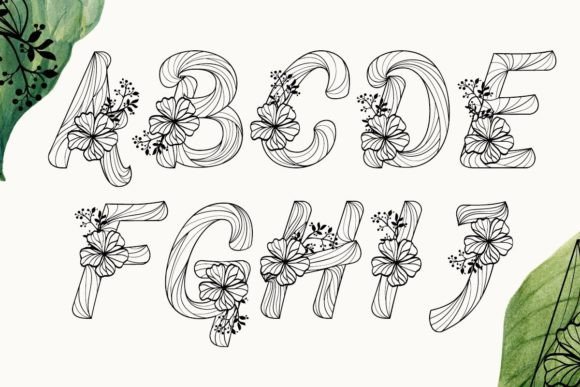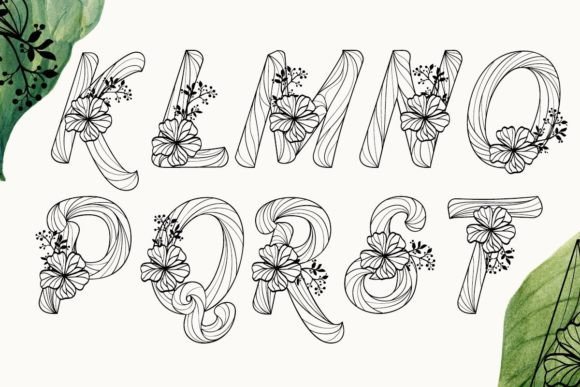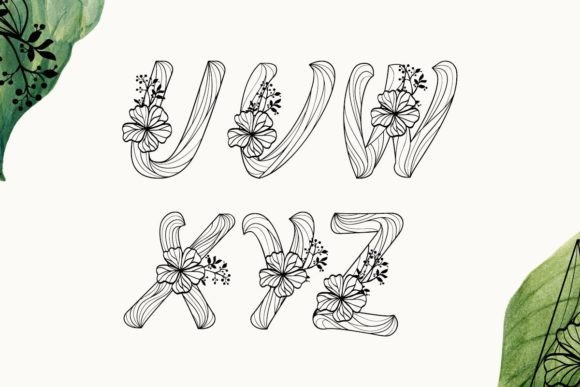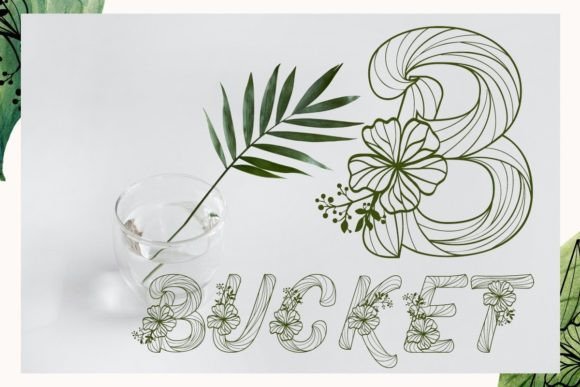
Asteria Root Font: Elevate Your Designs with Elegant Floral Accents
In the world of design, fonts play a crucial role in conveying the intended message and aesthetic of a project. For crafters, designers, and artists looking for a unique and versatile typeface, the Asteria Root Font is an exceptional choice. This multi-purpose decorative font combines sleek lines with beautiful floral accents and root patterns, making it perfect for a variety of creative projects.
What is Asteria Root Font?
Asteria Root Font is a decorative typeface designed to add a touch of elegance and charm to any design. Its distinctive feature is the seamless integration of floral accents and root patterns, which gives it a unique and sophisticated look. This font is not just a simple collection of characters; it’s a design element that can elevate your projects to a new level of creativity and aesthetic appeal.
Key Features of Asteria Root Font
- Multi-purpose: Asteria Root Font is versatile and can be used for a wide range of projects, from digital designs to print materials, and even embroidery and quilting.
- Floral Accents: The font’s floral elements add a delicate and sophisticated touch to any design, making it perfect for projects that require a bit of elegance.
- Root Pattern: The incorporation of root patterns gives the font a unique texture and depth, setting it apart from more traditional typefaces.
- Sleek and Elegant: The overall design of Asteria Root Font is sleek and elegant, making it suitable for designs that require a refined look.
Use Cases for Asteria Root Font
Asteria Root Font’s versatility makes it suitable for a variety of projects. Here are some of the most popular use cases:
Embroideries and Quilting
For crafters and needlework enthusiasts, Asteria Root Font offers endless possibilities. The font’s design is well-suited for embroidery patterns and quilting projects, allowing crafters to add personalized and decorative elements to their work.
Graphic Design Projects
Graphic designers can use Asteria Root Font to add a unique touch to their designs. Whether it’s for a logo, branding materials, or social media graphics, this font can help create visually appealing and distinctive designs.
Crafting and DIY Projects
Beyond embroidery and quilting, Asteria Root Font can be used in a variety of crafting and DIY projects. Whether you’re making cards, scrapbooking, or creating custom decals, this font can add a personalized and creative element to your work.
Tips for Using Asteria Root Font
To get the most out of Asteria Root Font, consider the following tips:
- Experiment with Sizes: The font’s design elements can be scaled up or down to fit your project’s needs. Experiment with different sizes to find the perfect balance for your design.
- Combine with Other Fonts: Asteria Root Font pairs well with a variety of other typefaces. Don’t be afraid to combine it with other fonts to create interesting contrasts and visual hierarchies.
- Play with Colors: The font’s design looks great in a variety of colors. Experiment with different color schemes to find the one that best fits your project’s aesthetic.
Asteria Root Font is a versatile and elegant typeface that can elevate a wide range of design projects. Its unique combination of floral accents and root patterns makes it a standout choice for crafters, designers, and artists looking to add a touch of sophistication to their work. Whether you’re working on embroidery, quilting, graphic design, or other creative projects, Asteria Root Font is sure to inspire and enhance your designs.